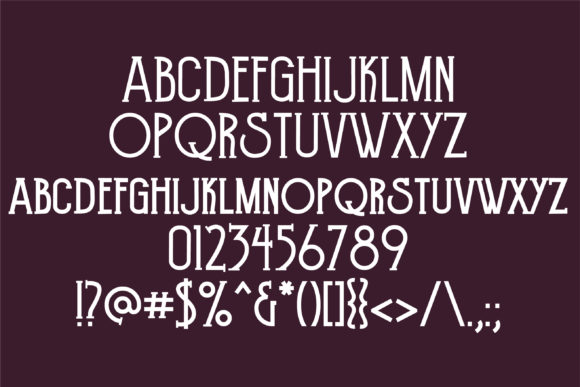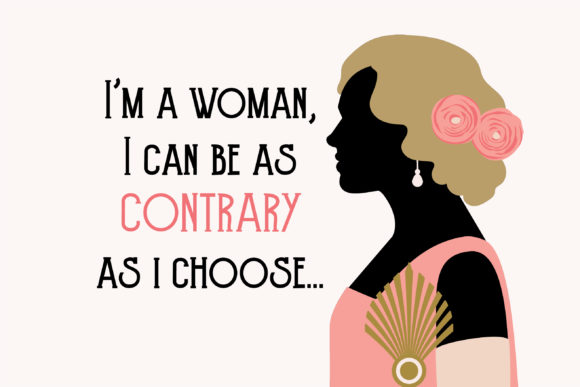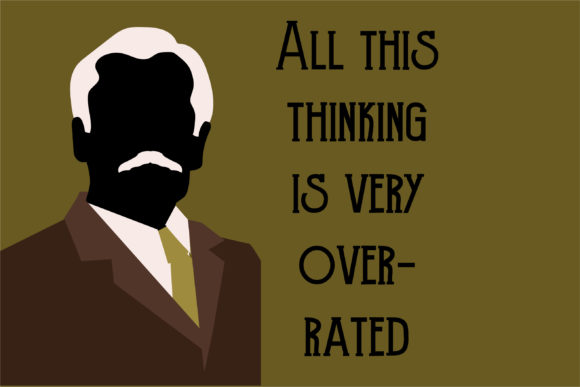
Dowager Font: Elevate Your Designs with Timeless Art Deco Elegance
Are you a designer or crafter looking for a font that exudes sophistication and class? Look no further than the stunning Dowager Font, an art deco inspired typeface that embodies the essence of luxury and refinement. In this article, we’ll dive into the world of Dowager Font, exploring its unique features, design inspiration, and the endless creative possibilities it offers.
The Art Deco Legacy: A Timeless Style
Art deco, a design style born in the 1920s, is characterized by its geometric shapes, metallic materials, and ornate decorations. This iconic aesthetic has stood the test of time, continuing to influence designers and artists to this day. Dowager Font is a beautiful tribute to the art deco era, capturing its essence with elegant lines, refined curves, and a dash of vintage glamour.
Unpacking Dowager Font: A Masterclass in Elegance
Dowager Font is more than just a typeface – it’s an experience. Its art deco inspired design features:
- Geometric shapes: Clean lines, precise angles, and symmetrical forms create a sense of order and sophistication.
- Ornate details: Intricate flourishes and decorative elements add a touch of luxury and refinement.
- Classic feel: Dowager Font’s timeless design ensures it remains relevant, regardless of current trends.
Whether you’re a seasoned designer or a crafty enthusiast, Dowager Font offers endless creative possibilities:
- Branding and logos: Create stunning logos, business cards, and letterheads that exude elegance and sophistication.
- Wedding and event planning: Use Dowager Font to design beautiful wedding invitations, menus, and signage that set the tone for a luxurious celebration.
- Packaging and product design: Elevate your product packaging with a touch of art deco glamour, perfect for high-end products or limited-edition releases.
- Digital and print media: Add a dash of sophistication to your digital and print projects, from social media graphics to magazine layouts.
Why Choose Dowager Font?
In a world where fonts are abundant, Dowager Font stands out for its:
- Uniqueness: Dowager Font’s art deco design ensures your projects won’t get lost in a sea of generic typefaces.
- Versatility: Use Dowager Font across various design projects, from branding to packaging, and digital media.
- Timelessness: Its classic design guarantees Dowager Font will remain relevant for years to come, saving you the hassle of frequent font updates.
Get Inspired by Dowager Font’s Timeless Style
Dowager Font is more than just a typeface – it’s a gateway to a world of creative possibilities. With its stunning art deco design, elegant lines, and refined curves, this font is sure to inspire designers and crafters alike. So why wait? Dive into the world of Dowager Font and elevate your designs with timeless sophistication.
In conclusion, Dowager Font is a beautiful art deco inspired typeface that offers designers and crafters a unique chance to add a touch of luxury and refinement to their projects. With its timeless design, versatility, and endless creative possibilities, Dowager Font is the perfect choice for anyone looking to elevate their designs and make a lasting impression.